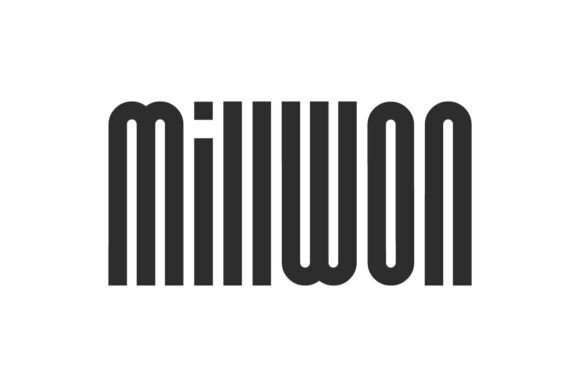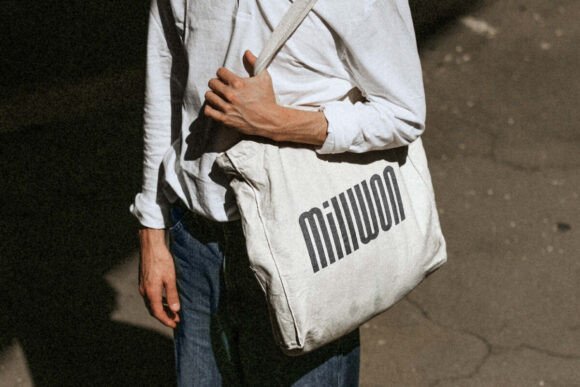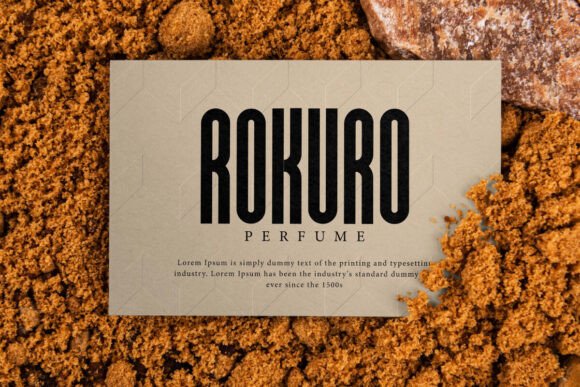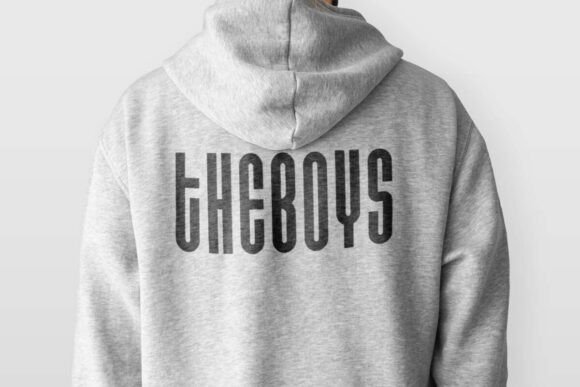
Millwon Font: A Modern Display Font for Unique Logo Design & Branding
About the Millwon Font
Get ready to be inspired by Millwon Font, a fresh and dynamic typeface for modern creators. Millwon Font is a modern, playful display font featuring unique curved edges on each character. It’s perfect for elevating your designs to a high level across various applications, including billboards, brand logos, brochures, business cards, invitations, labels, magazine catalogs, mockups, posters, packaging, quotes, screen prints, signage, stationery, stickers, titles, websites, and more.
Millwon’s playful curves make it ideal for headlines, short text blocks on posters or packaging, and eye-catching logos. Its distinctive character shines in branding for products targeting a young, energetic audience or projects emphasizing fun and creativity. Avoid using Millwon for body text or UI elements; its unique forms reduce readability in extended use.
Pairing Millwon effectively requires a contrasting typeface to balance its playful energy. A clean sans-serif like Open Sans or a more structured serif such as Merriweather can provide a solid foundation. For a more whimsical approach, consider a handwritten script font, but choose one with legible letterforms to maintain clarity.
The overall personality of Millwon is bold and friendly, conveying a sense of modern energy without being overly serious or aggressive. This makes it perfect for brands that want to communicate vibrancy and approachability.
Millwon Font Usage Examples
Millwon Font Example